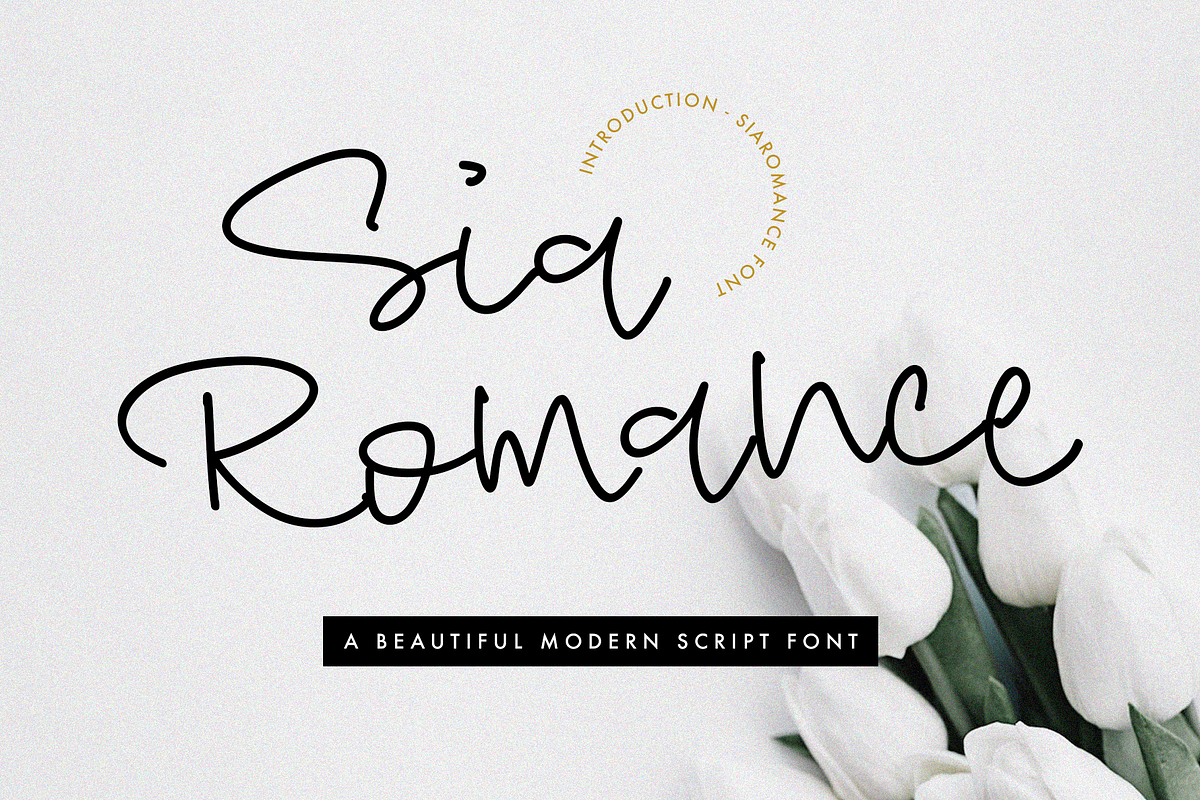
SiaRomance - A Beautiful Script Font Free Download is an elegant, flowing typeface that captures the essence of romance and sophistication. With its delicate curves and graceful letterforms, this script font is perfect for wedding invitations, love notes, branding for beauty products, feminine logos, and luxury stationery.
Designed to feel both personal and polished, SiaRomance brings a handwritten charm that adds emotional warmth to any design. Its fluid connections and refined details make it ideal for projects that need a soft, romantic, and high-end touch.